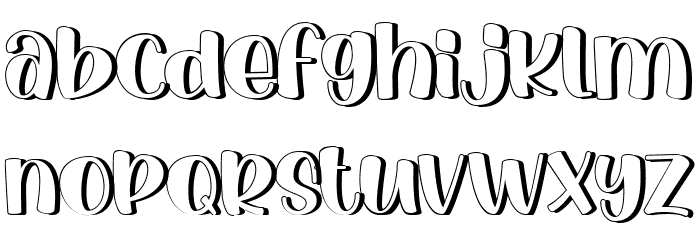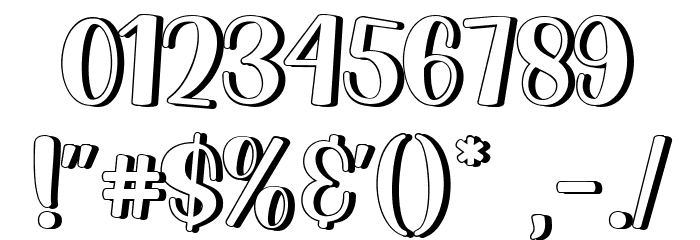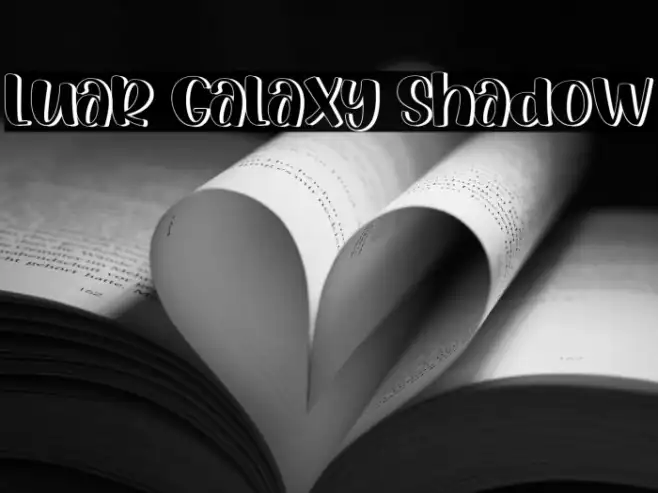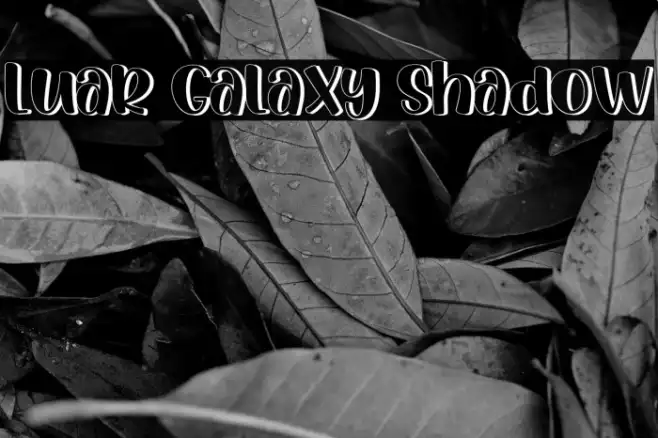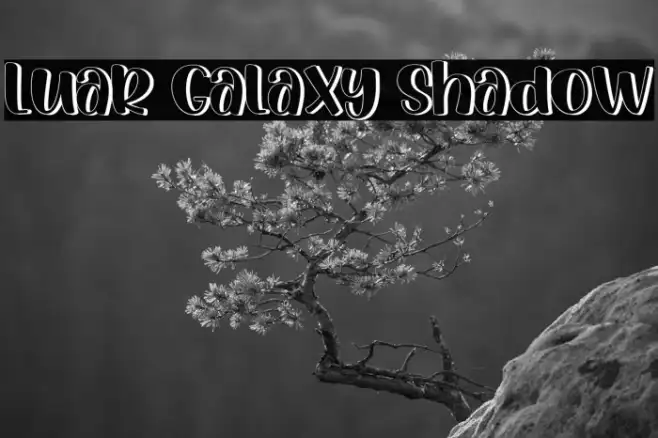
Luar Galaxy Shadow Font
This font features a playful and bold design with a shadow effect that adds depth and dimension to each character. The letters are rounded and have a smooth, flowing style that conveys a sense of fun and creativity. The uppercase and lowercase letters maintain a consistent style, with the shadow creating a three-dimensional appearance. The numbers and special characters are designed to match the playful aesthetic, making them suitable for a variety of creative projects. The font's unique style makes it stand out, perfect for eye-catching designs.
A playful, bold font with a shadow effect and rounded, flowing characters.
- Font: Luar Galaxy Shadow
- Proposed Projects: Ideal for children's books, playful branding, posters, and creative invitations.
- Overall Style: Playful, Creative